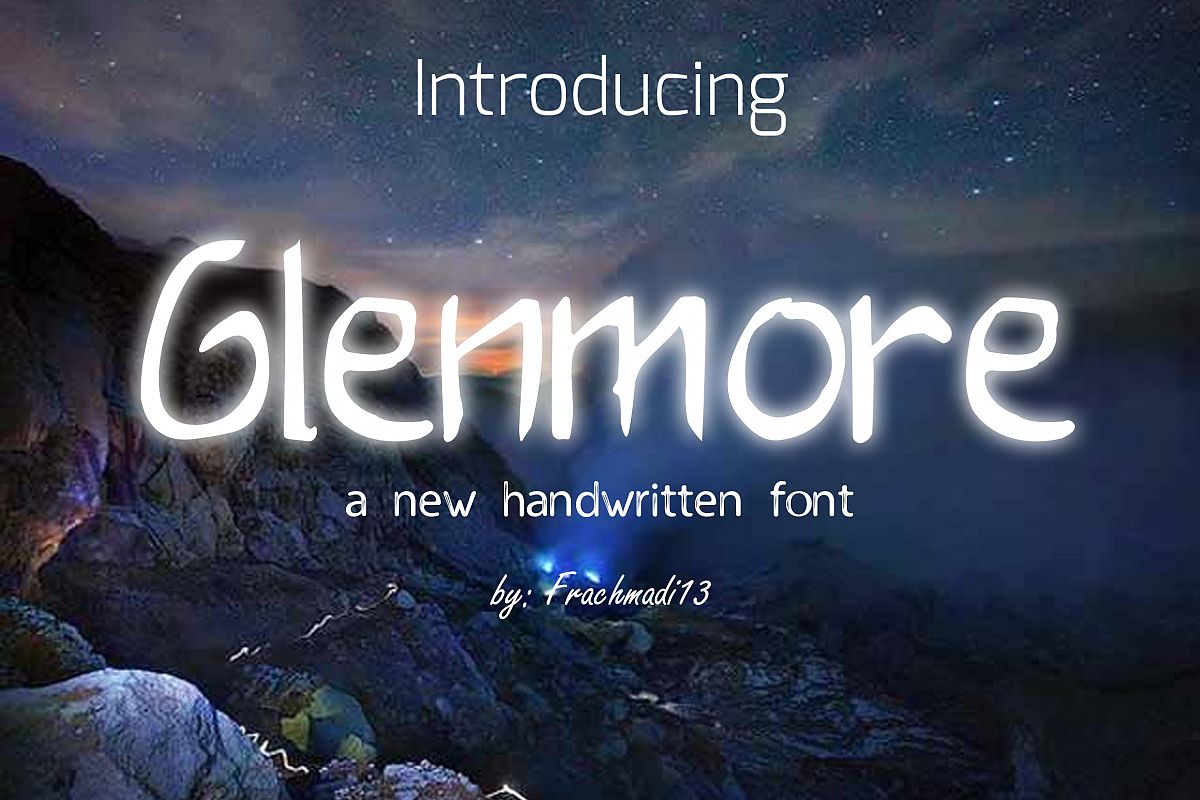
Glenmore
Glenmore is a new brand of Handwritten font. It has an unique and simple handwritten font which makes it perfect font for flyer, invitation , logos, and many more.